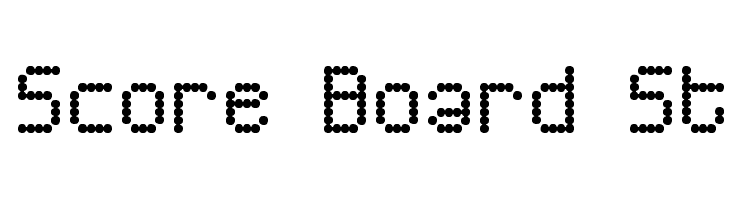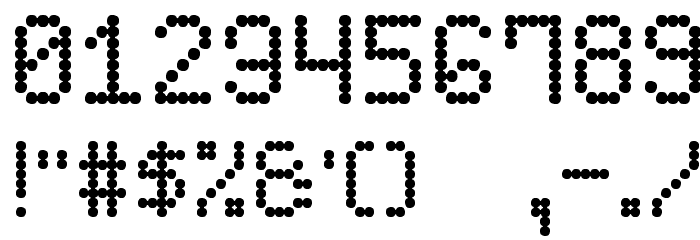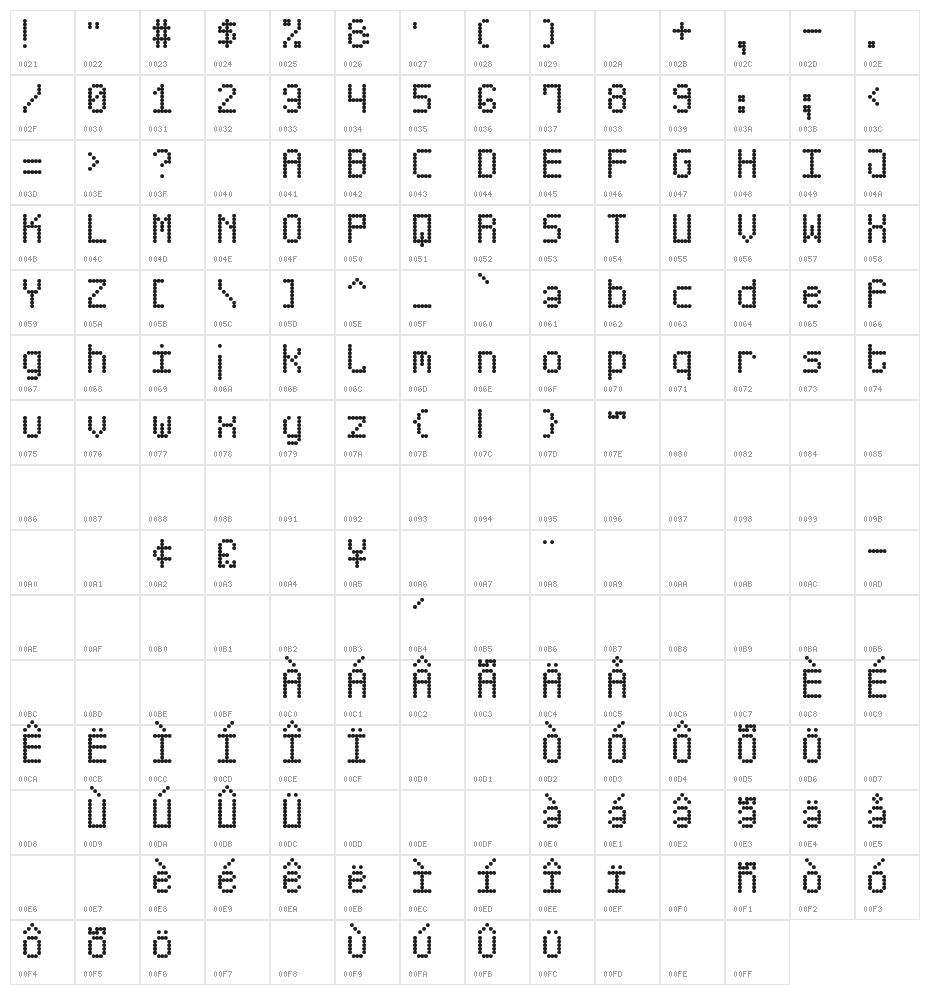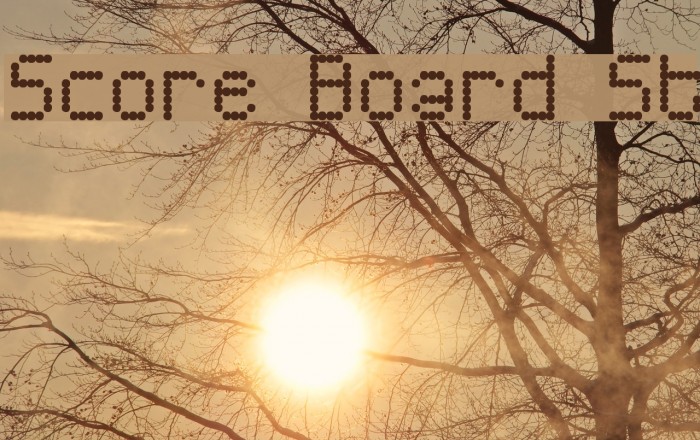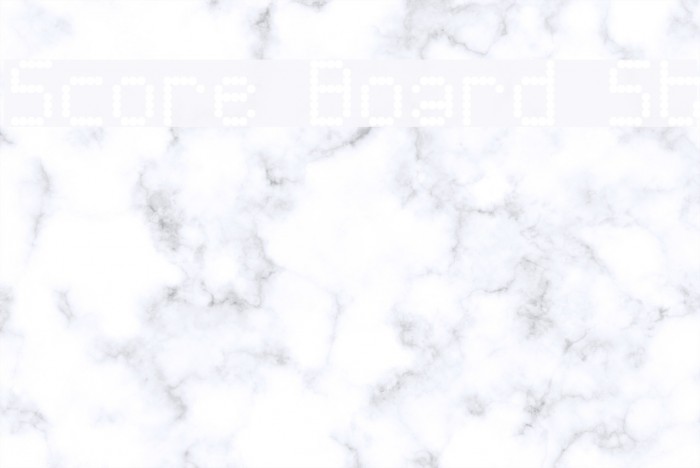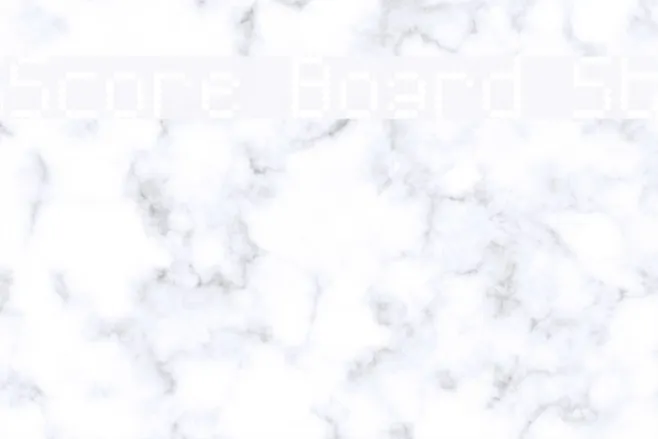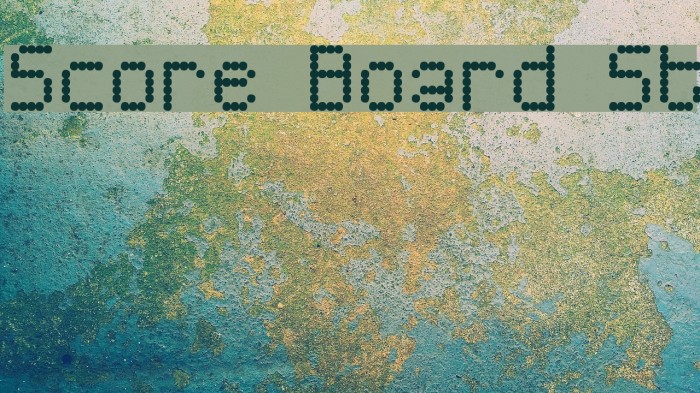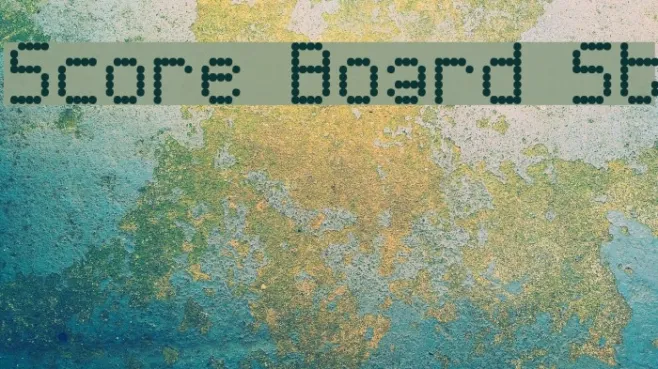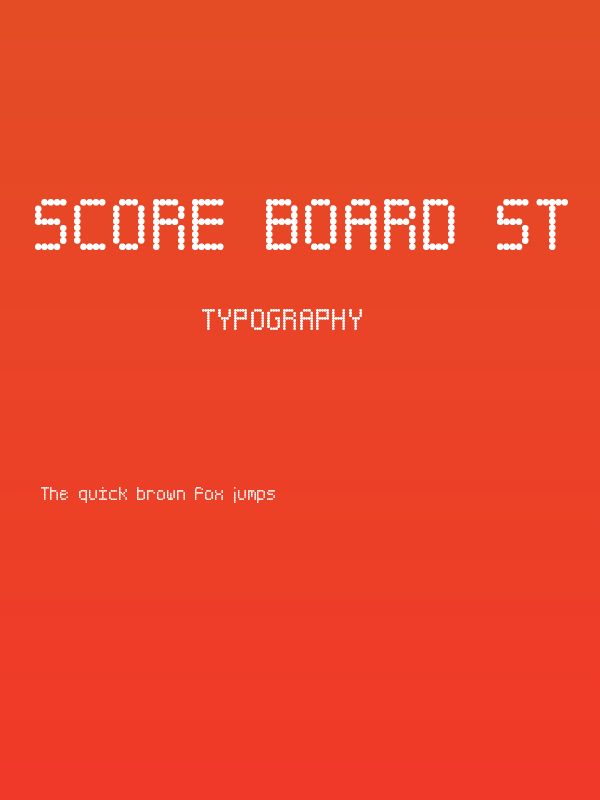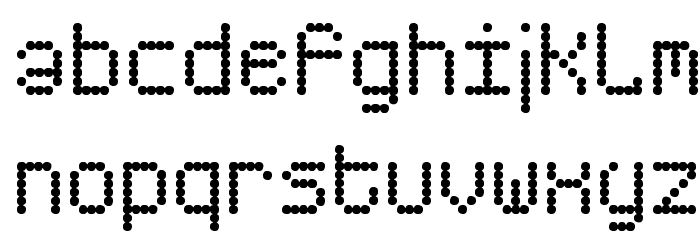
Score Board St Font
Score Board St Description
This font is a unique and playful design composed entirely of small, evenly spaced dots forming each character. The letters and numbers are constructed in a grid-like pattern, giving a digital or retro scoreboard appearance. The uppercase and lowercase letters maintain a consistent height, with rounded edges due to the dot formation. The numerals and special characters follow the same dot matrix style, ensuring uniformity across all glyphs. This font's distinct style is reminiscent of vintage electronic displays, making it ideal for projects that aim to evoke nostalgia or a tech-inspired aesthetic.
| Use Case | Headlines, Logos, Digital Displays |
| Proposed Projects | Ideal for retro-themed designs, digital displays, video game graphics, and tech-inspired branding. |